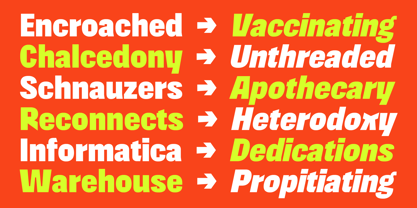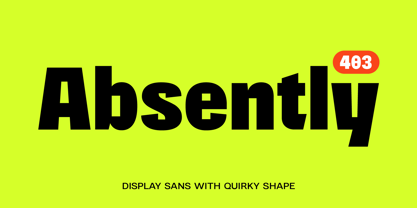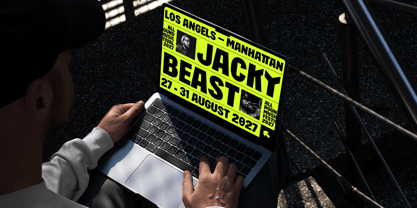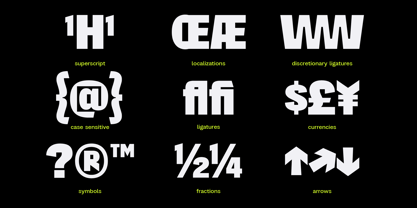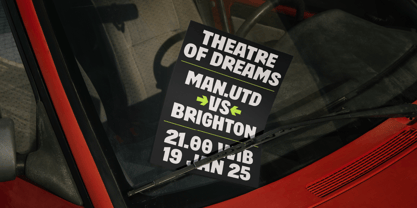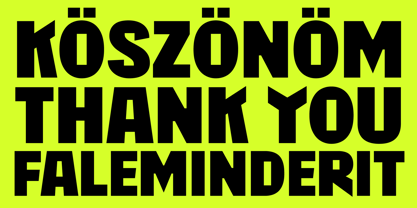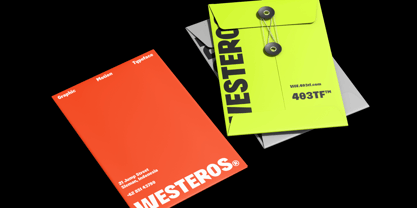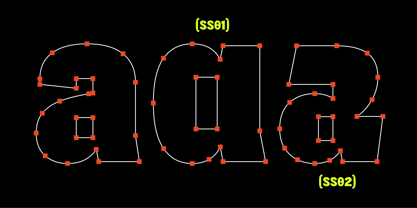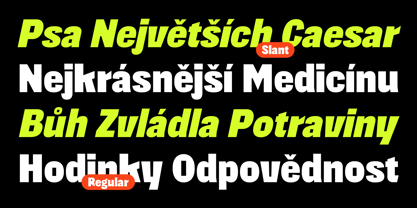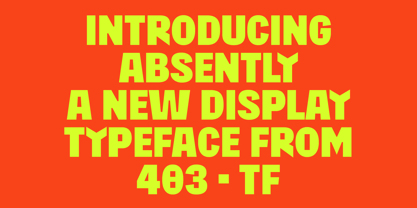
403 Absently
by 403TF
The 403 Absently Font Family was designed by Umar Al Farouq, Jodi El Ghazi, Febri Riansah and published by 403TF. 403 Absently contains 2 styles and family package options.
403 Absently is a striking display typeface that is geometric, forceful, and incredibly expressive. It is perfect for eye-catching applications like posters, headlines, or branding because of its substantial weight and modular design. Its somewhat compressed lines conjure a retro-modern appeal, reminiscent of mid-century display type modified for modern use, while the geometric shapes give it a modern and structured vibe.